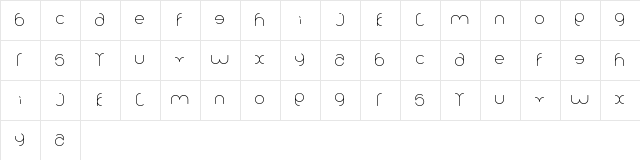
karitza Regular
Design Context for karitza Typeface
karitza offers clean, dependable letterforms without strong stylistic allegiance, making it a practical choice for designers who need flexibility.